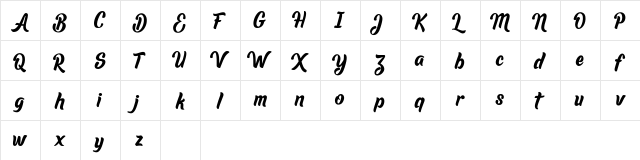
Lauthan Regular
| Designer | Nur Faidin (Nurf Designs) Banten Indonesia |
Design Context for Lauthan Typeface
Lauthan is a composed and adaptable typeface that performs quietly and consistently across a wide range of design contexts.